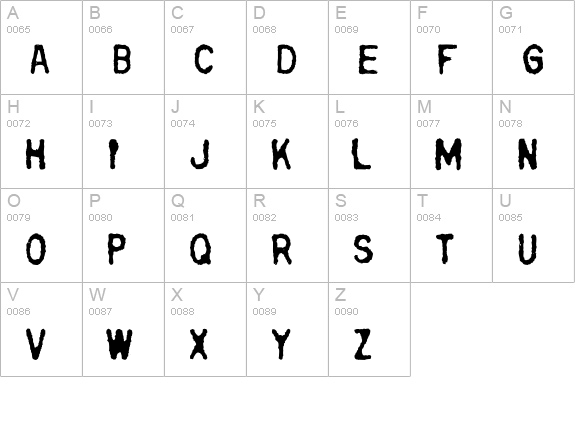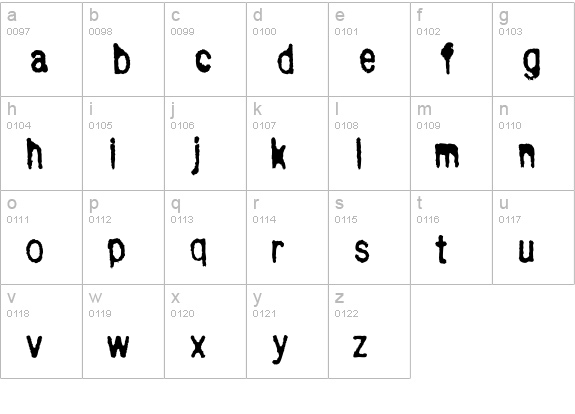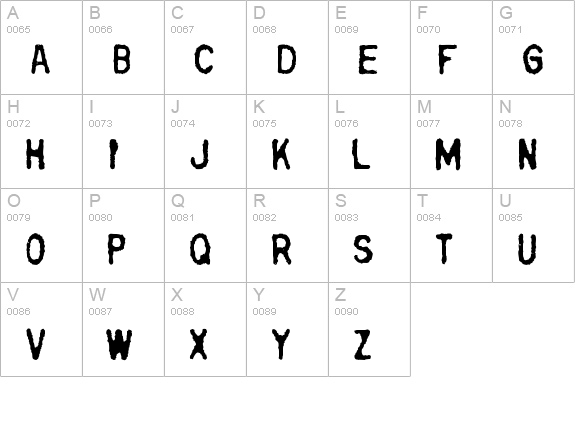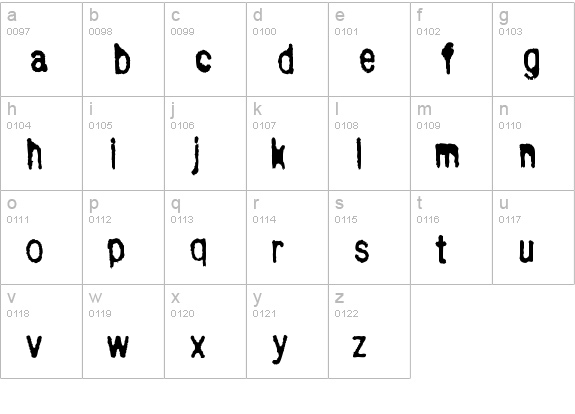
Bull-Inked Font Details
Introducing Bull-Inked font, a bold and dynamic typeface that exudes strength and power. This unique font features sharp lines and intricate details, giving your designs a fierce and edgy look. Perfect for branding, headlines, and any design projects that require a strong and impactful style. And the best part? Bull-Inked font is completely free to download at FontsMarket.com. So go ahead and unleash your creativity with this eye-catching font that will make your designs stand out from the crowd. Download Bull-Inked font today and make a bold statement with your next project!